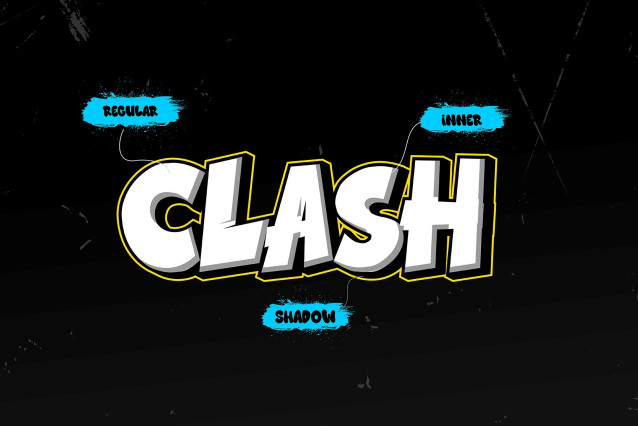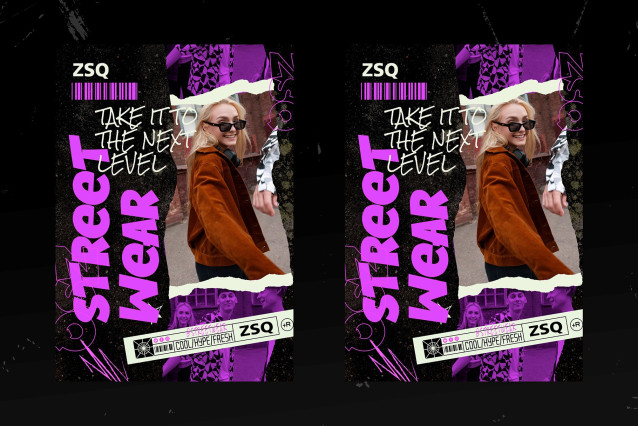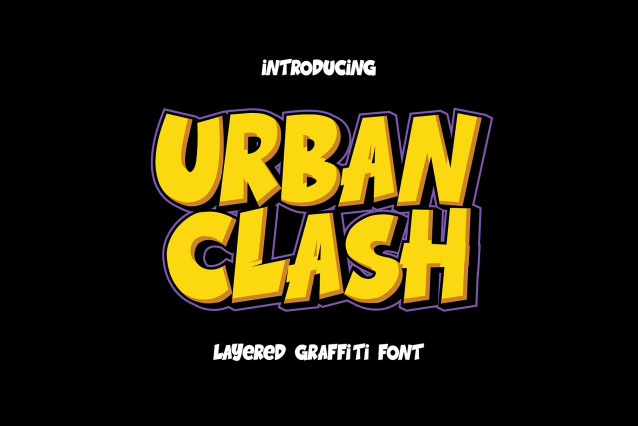
Urban Clash Font
Urban Clash Font – Layered Graffiti Font is a bold, artistic typeface designed for designers who want to bring raw street energy into their projects. With layered styles that include Inner and Shadow versions, plus alternates in numbers, this layered graffiti font gives you the freedom to create striking posters, logos, and merchandise that stand out.
From music event flyers to urban branding, Urban Clash is the graffiti font that instantly adds attitude, movement, and personality to your design.
Layered Graffiti Font with Style and Impact
Urban Clash isn’t just another display font. It’s a layered graffiti font that comes with three versions: the main style, an inner style, and a shadow style. These layers can be combined to create depth, dimension, and authentic street art vibes. This makes it an essential tool for any designer looking to replicate the energy of spray paint typography in digital or print projects.
The flexibility of Urban Clash ensures it works for bold headlines, graffiti-inspired logos, and even edgy apparel graphics. It’s not just about letters—it’s about telling a story of rebellion and creativity.